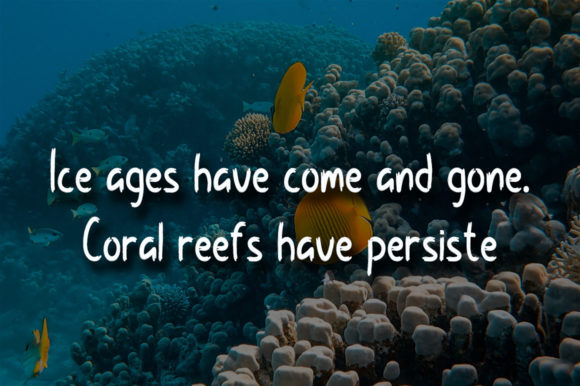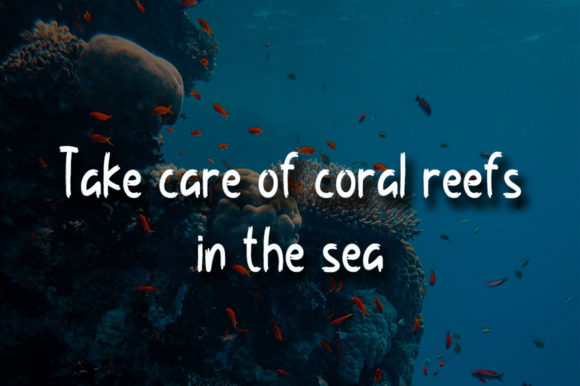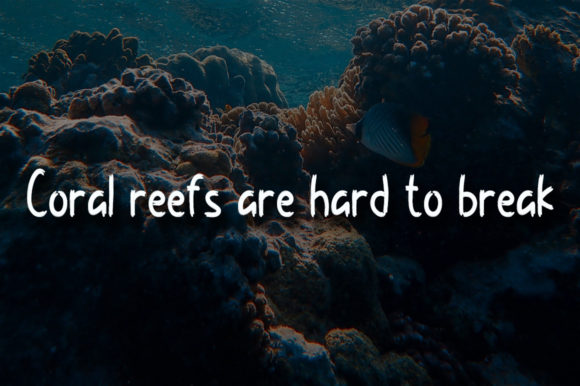
Introducing Coral Reef Font: Elevate Your Designs with a Unique and Clean Handwritten Style
In the world of typography, a good font can make all the difference in the success of a design project. Whether you’re a professional designer, a crafty DIY enthusiast, or a social media influencer, the right font can instantly elevate your creations and make them stand out from the crowd. If you’re on the hunt for a fresh and exciting font to add to your collection, look no further than Coral Reef Font. This unique and clean looking handwritten font is sure to bring a touch of elegance and sophistication to any project.
What is Coral Reef Font?
Coral Reef Font is a beautifully crafted handwritten font that boasts a simple yet striking design. With its clean lines, flowing curves, and balanced proportions, this font exudes a sense of refinement and poise. Whether you’re looking to create a stunning logo, a captivating social media post, or a beautiful craft project, Coral Reef Font is the perfect choice. Its versatility and legibility make it suitable for a wide range of applications, from digital designs to print materials.
Key Features of Coral Reef Font
- Unique and Handwritten Design: Coral Reef Font features a distinctive handwritten style that sets it apart from more traditional fonts.
- Clean and Simple: The font’s clean lines and simple design make it easy to read and versatile for use in various contexts.
- Strong Visual Effect: The font’s elegant curves and balanced proportions create a strong visual impact that will instantly elevate your designs.
- Highly Legible: Coral Reef Font is designed to be easy to read, making it perfect for body text, headings, and titles.
Why Choose Coral Reef Font?
So, what makes Coral Reef Font a top choice for designers and crafters? Here are just a few reasons why this font stands out:
- Adds a Personal Touch: The handwritten design of Coral Reef Font adds a personal and human touch to your designs, making them more relatable and engaging.
- Versatile and Adaptable: This font can be used in a wide range of applications, from digital designs to print materials, and can adapt to various design styles and themes.
- Easy to Pair: Coral Reef Font pairs well with a variety of other fonts, making it easy to create harmonious and visually appealing typography.
- High-Quality Design: The font is carefully crafted with attention to detail, ensuring a high-quality design that will make your creations stand out.
Coral Reef Font is a unique and clean looking handwritten font that is sure to elevate your designs and make them stand out from the crowd. With its simple yet striking design, strong visual effect, and high legibility, this font is perfect for designers, crafters, and anyone looking to add a touch of elegance and sophistication to their creations. So why wait? Download Coral Reef Font today and start creating stunning designs that will leave a lasting impression!